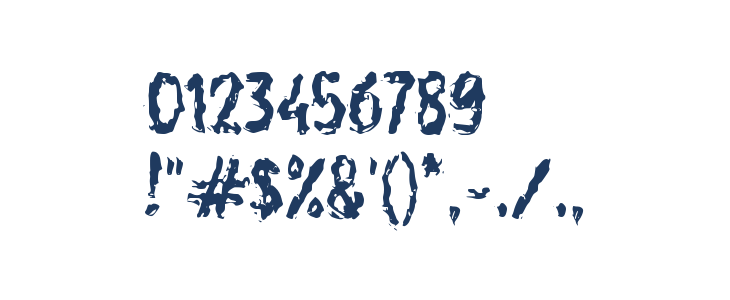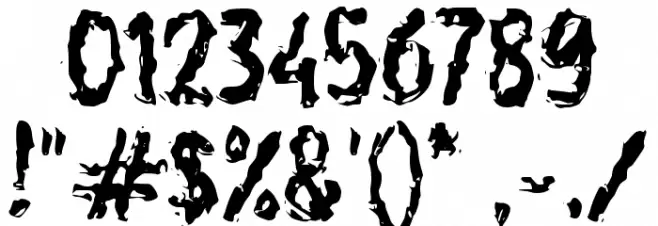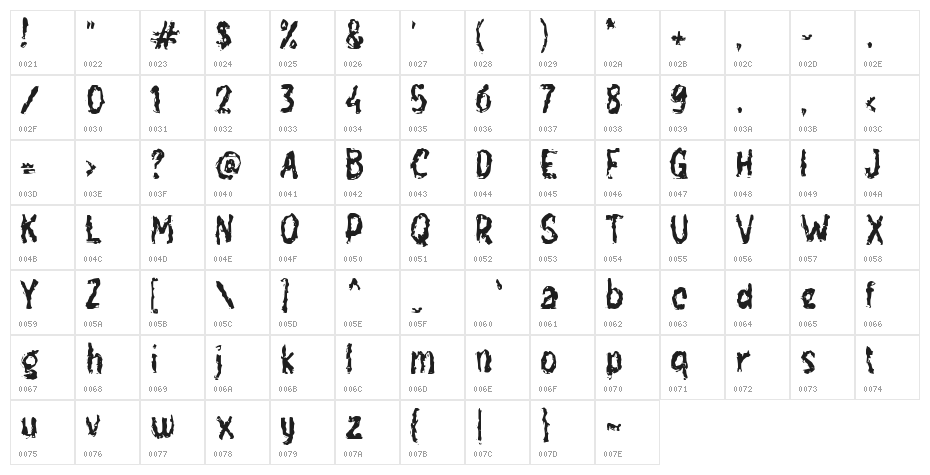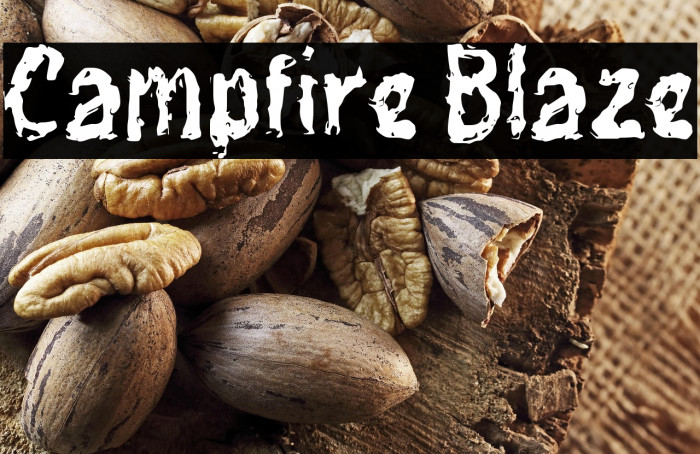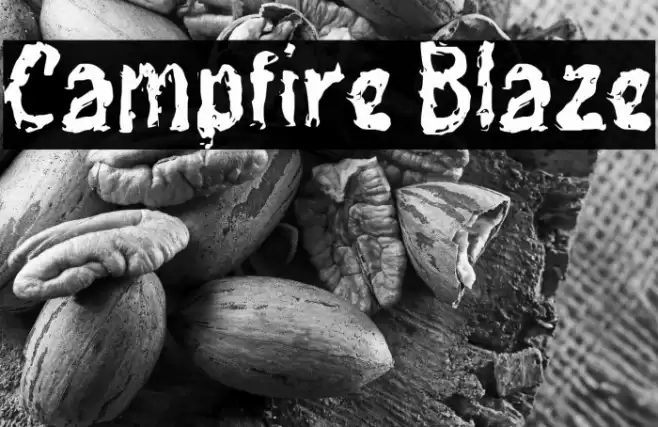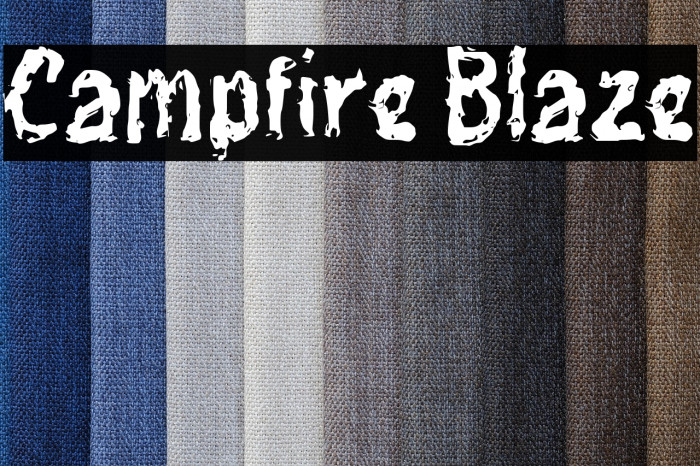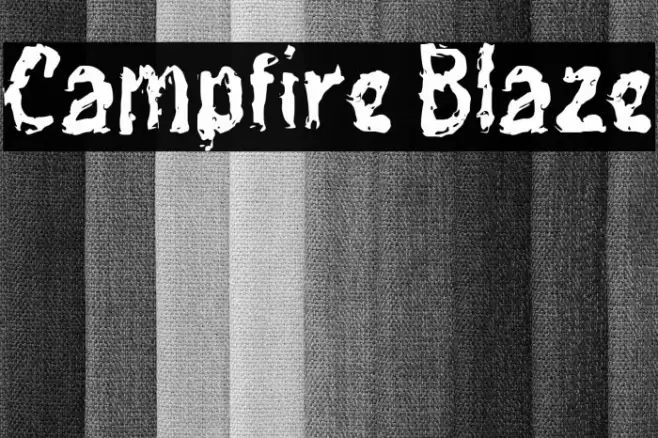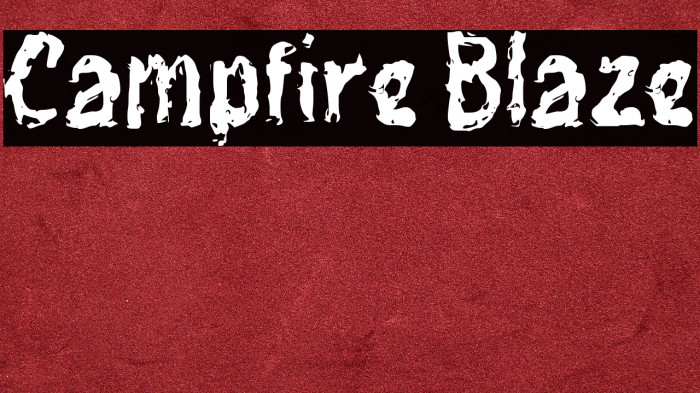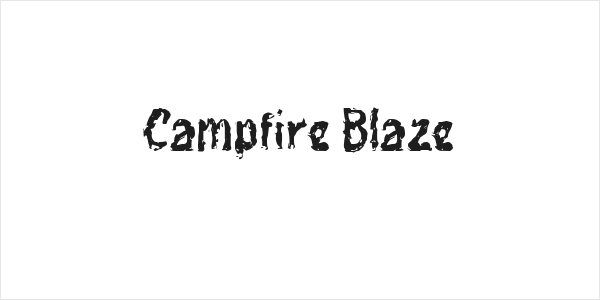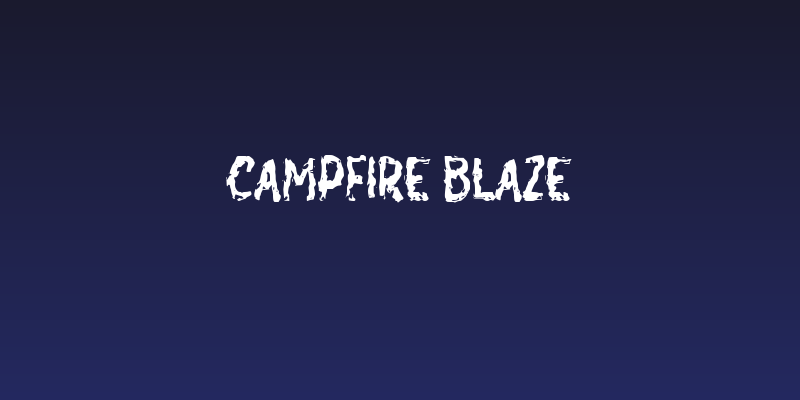
Campfire Blaze Font
Campfire Blaze Description
This font features a rugged, distressed style that mimics the appearance of charred wood or flames. The characters are irregular and jagged, giving an impression of movement and energy. Each letter has a unique, hand-crafted look, with uneven edges and varying thicknesses that suggest a natural, organic process. The font is bold and impactful, making it suitable for attention-grabbing designs. Its chaotic yet artistic appearance makes it ideal for themes related to nature, adventure, or anything requiring a raw, untamed aesthetic.
| Proposed Projects | Ideal for outdoor adventure branding, event posters, or album covers that require a bold, natural aesthetic. |